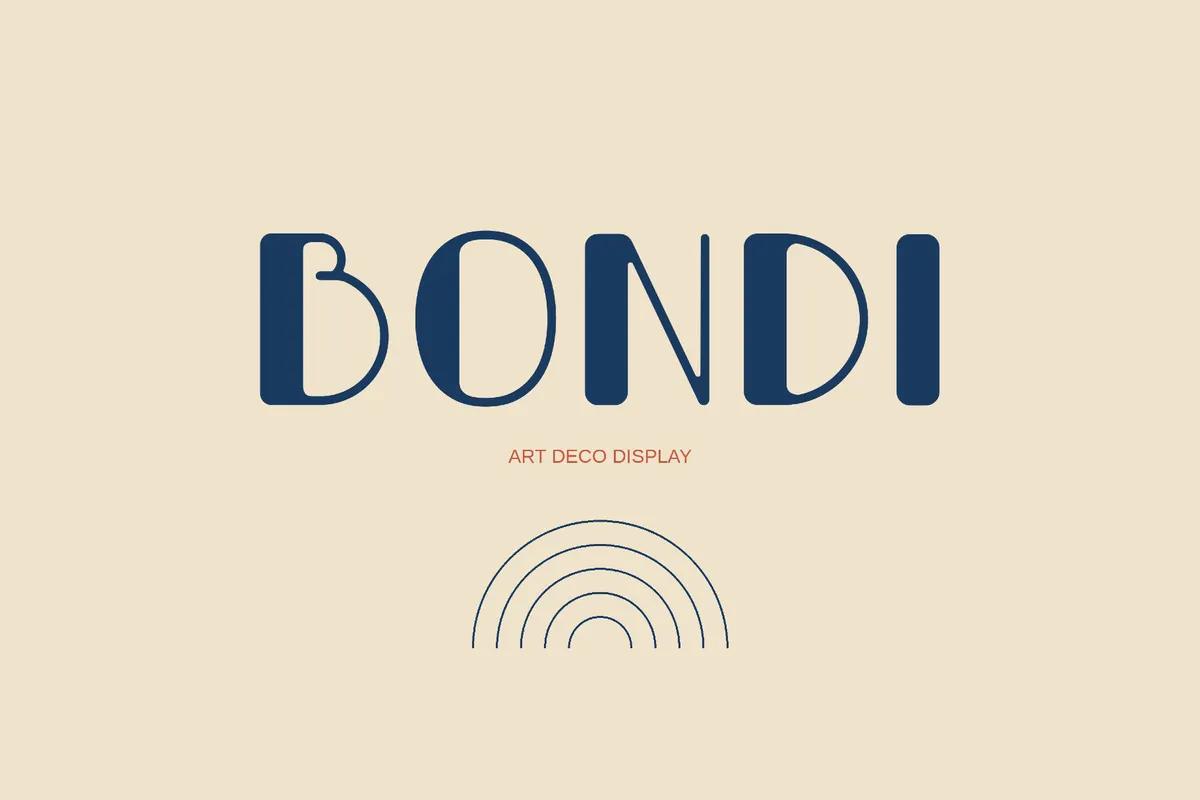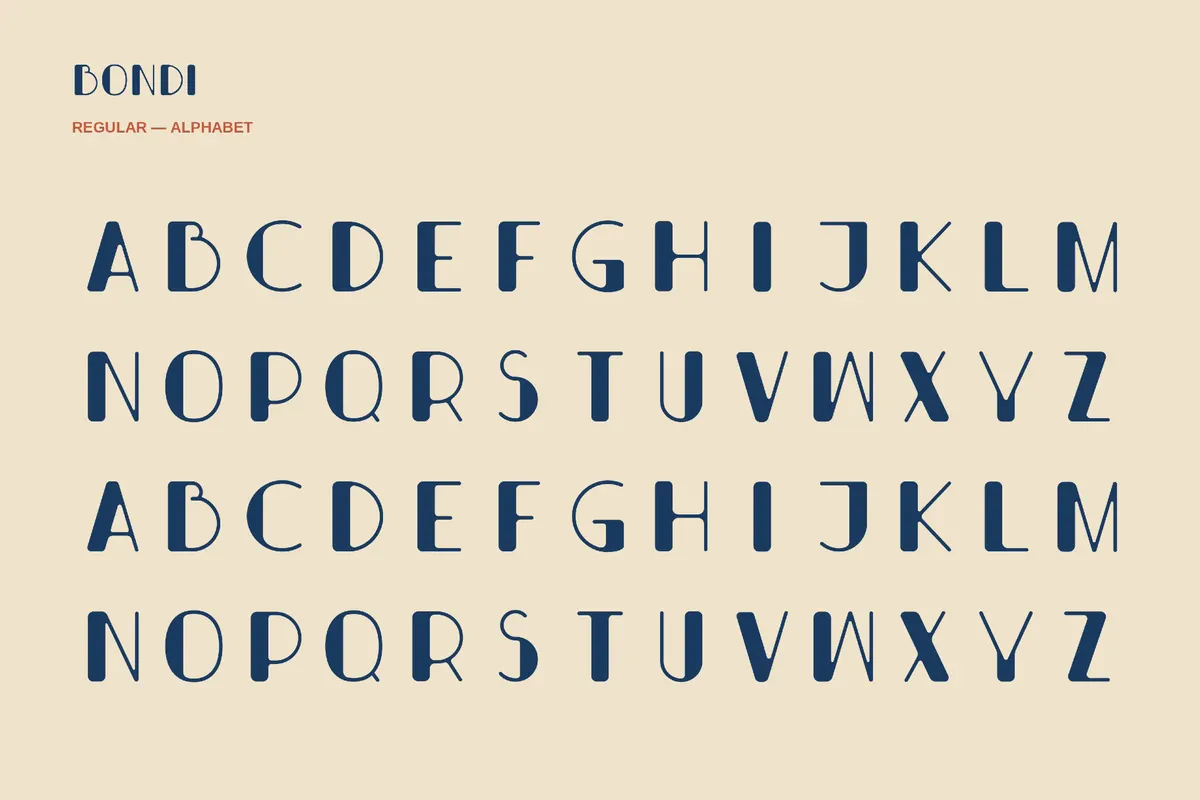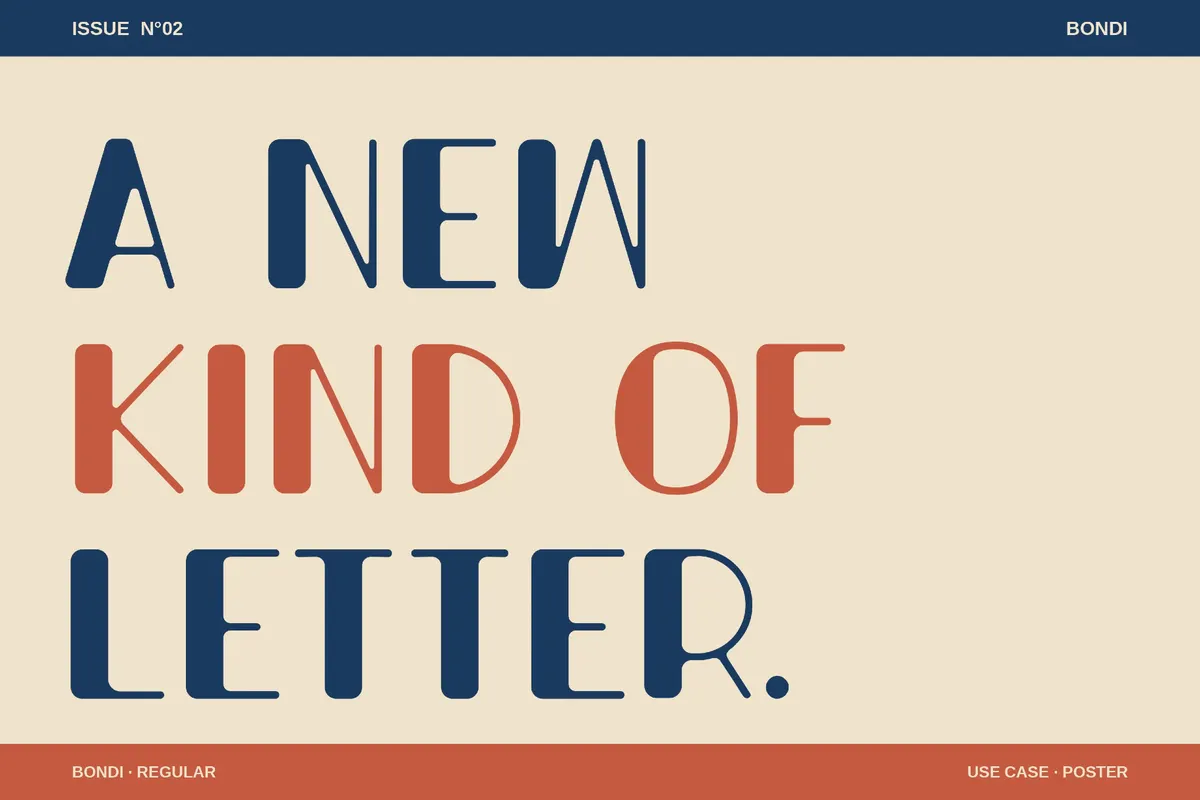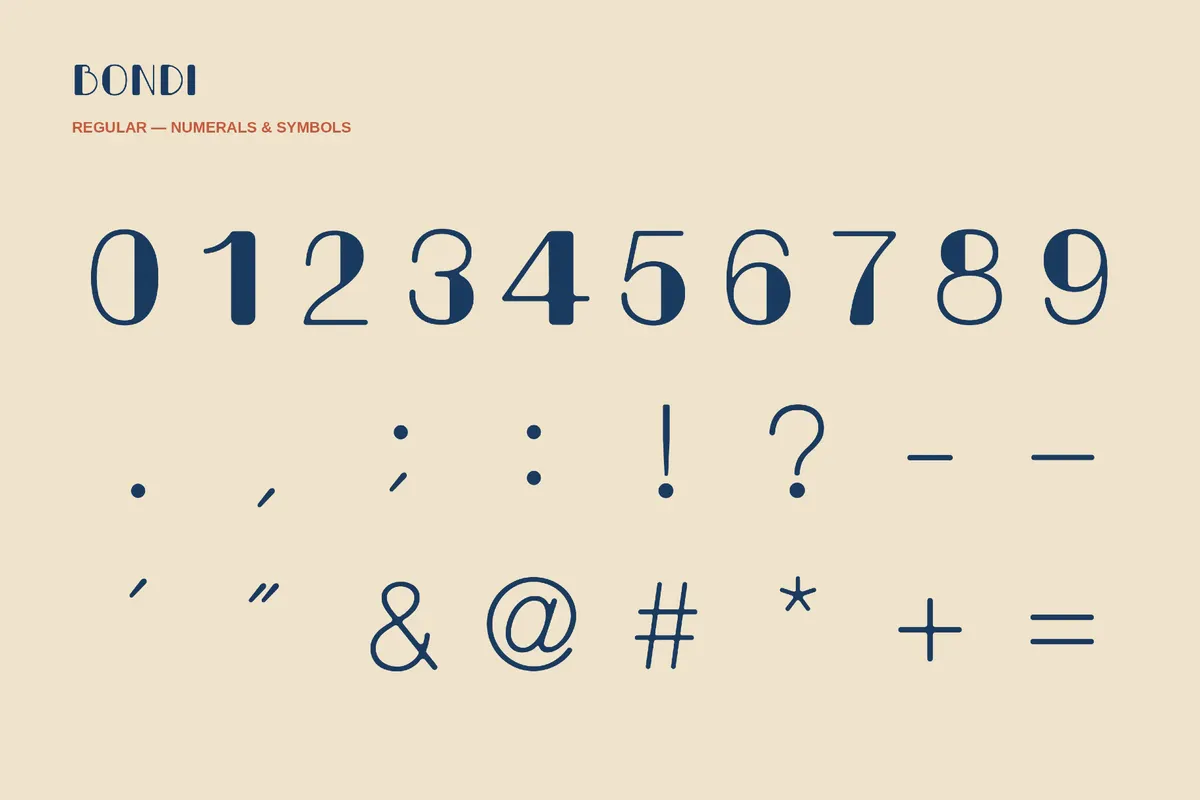
Bondi - Wide Art Deco Font
Wide, rounded retro forms give Bondi a relaxed coastal rhythm, shaped by soft curves, open spacing, and a sun-warmed display. Its visual mood recalls beach signage and 1970s travel posters, and it fits perfectly with swimwear branding, summer event posters, lifestyle packaging, travel graphics, juice and smoothie labels, resort visuals, music artwork, apparel prints, tote bags, stickers, and social media posts.
• uppercase letters;
• numbers, punctuation, and symbols;
• multilingual support across the basic Latin script.